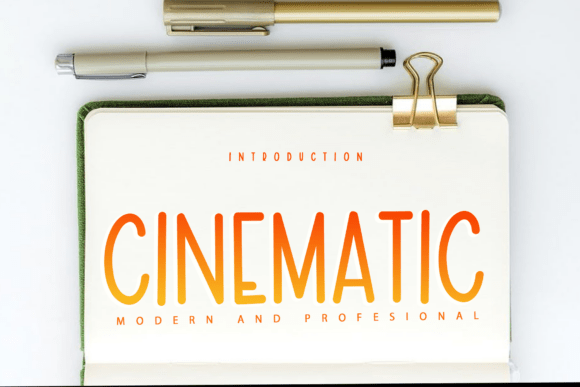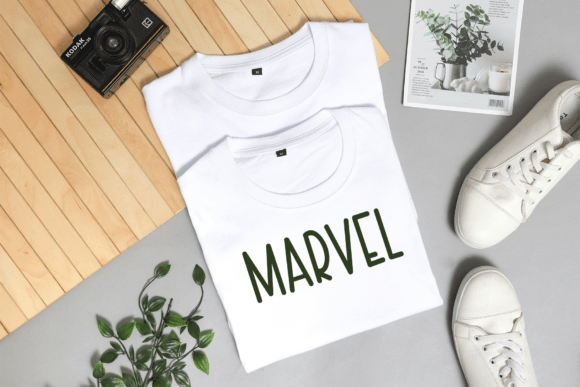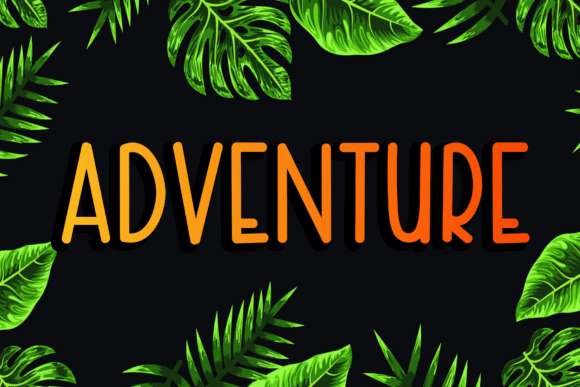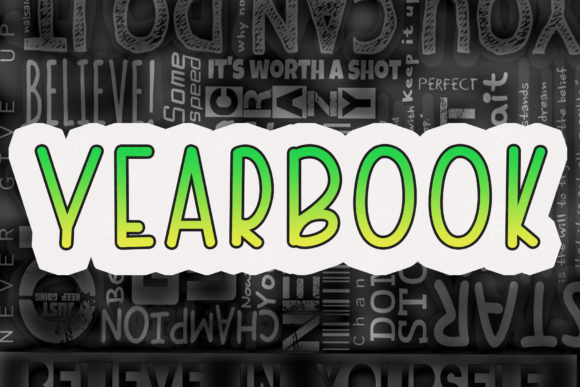
Cinematic Font
About the Cinematic Font
Introducing the Cinematic Font, a beautifully crafted typeface designed to elevate your creative projects. Cinematic is a sweet and friendly handwritten font. Fresh and casual, this font is ideal for writing wedding invitations, cards, or any other design that might need a lovely touch.